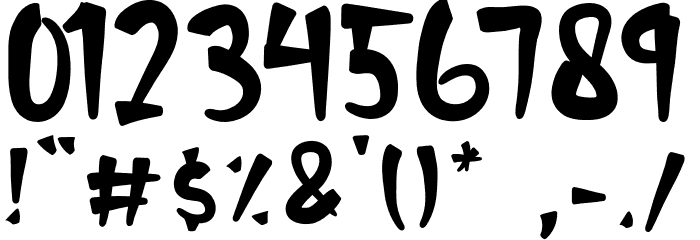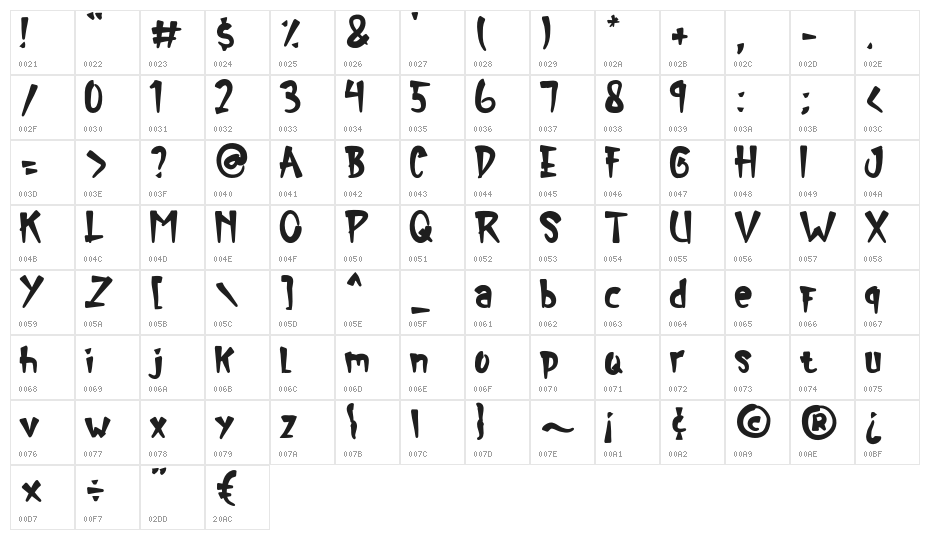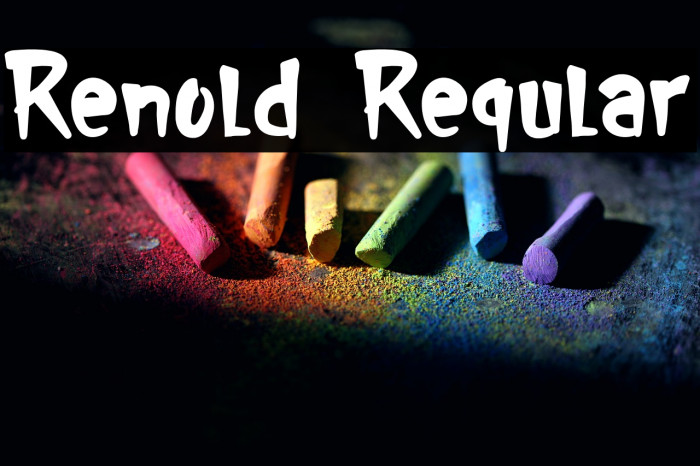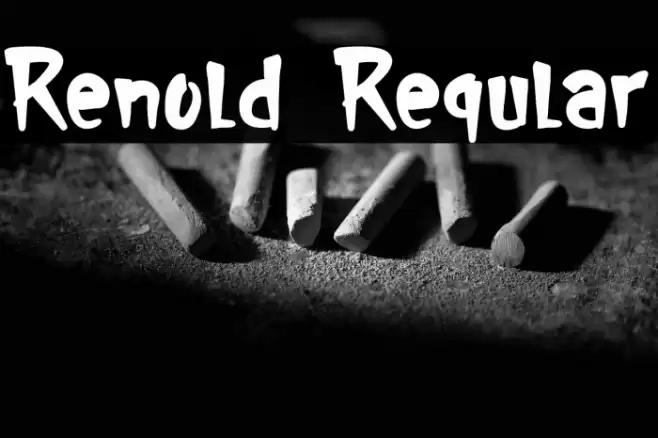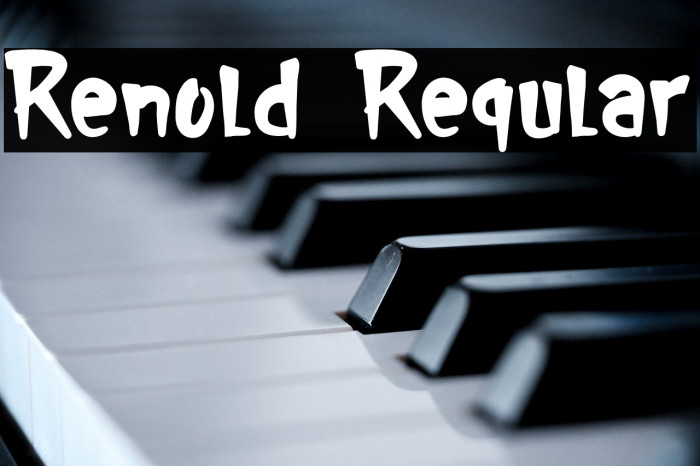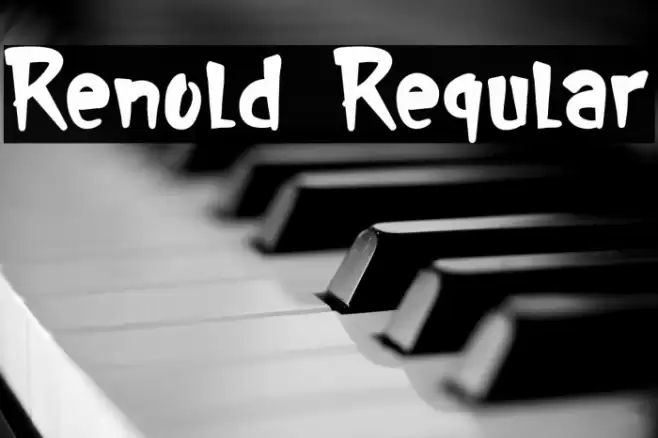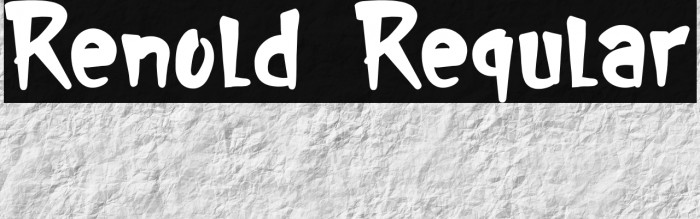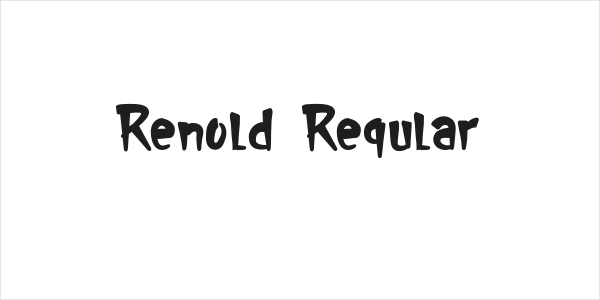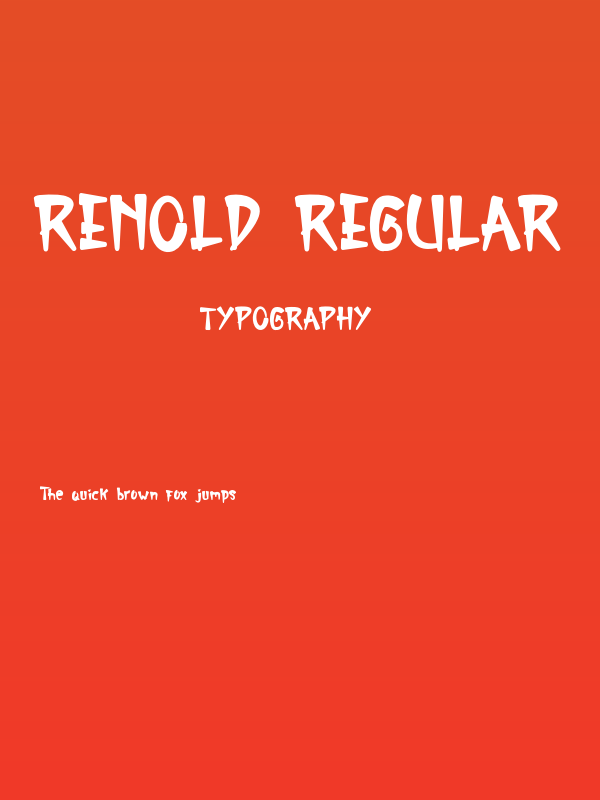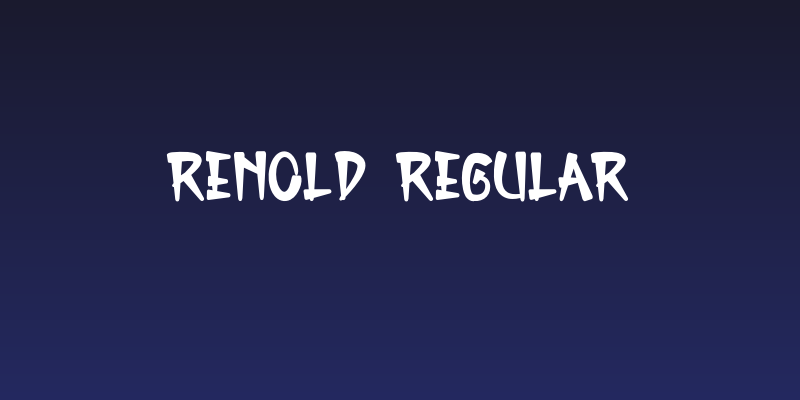
Renold Regular Font
Renold Regular Description
This font exhibits a bold and playful handwritten style, characterized by its irregular and dynamic letterforms. The uppercase and lowercase letters maintain a consistent thickness, contributing to a cohesive appearance. The numbers and special characters follow the same playful aesthetic, making the font suitable for creative and informal applications. The strokes are thick and rounded, giving it a friendly and approachable feel. The overall design is energetic and lively, with a touch of whimsy that adds character to any text.
| Overall Style | Playful, Energetic |